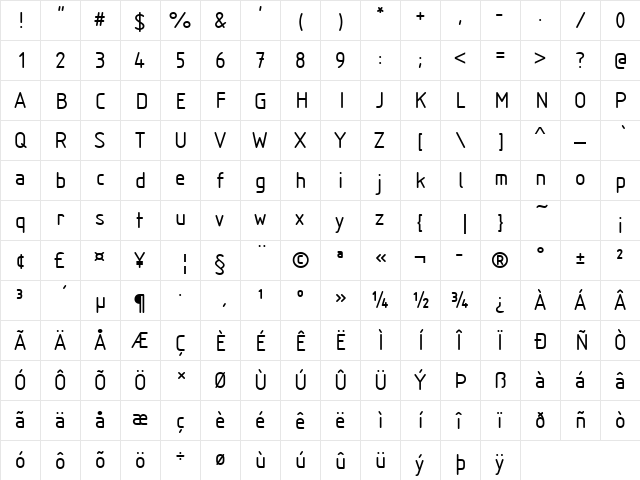
IsonormD Regular Font Preview
IsonormD Regular
IsonormD Regular Font Details
Design Context for IsonormD Typeface
IsonormD takes a measured approach to typography — its balanced proportions and neutral character make it a reliable workhorse for both digital and print work.